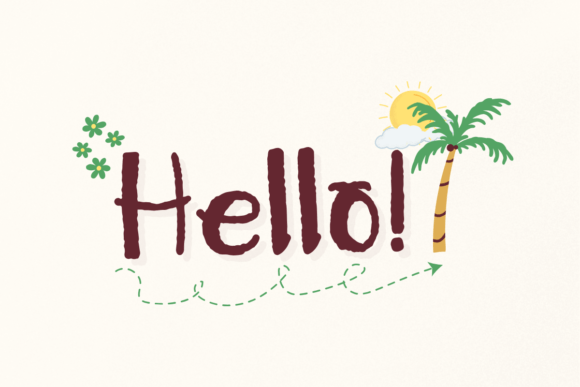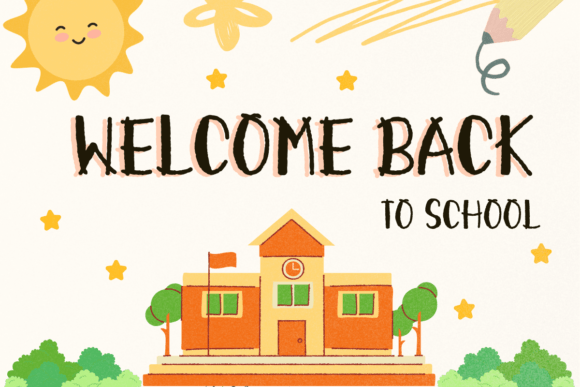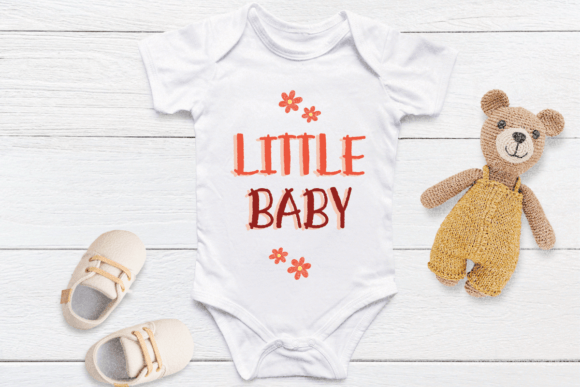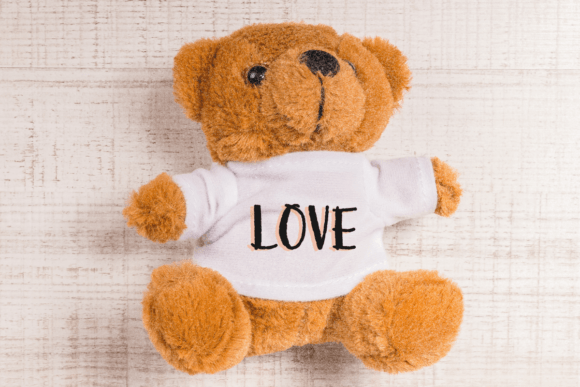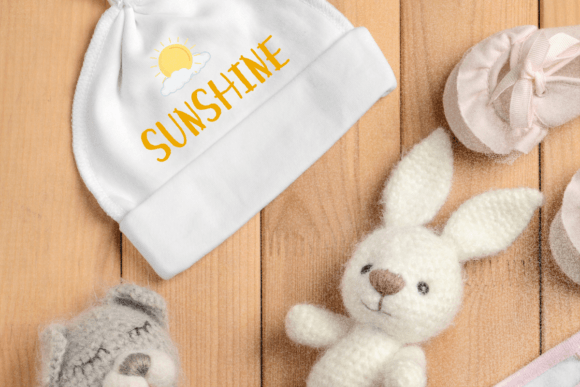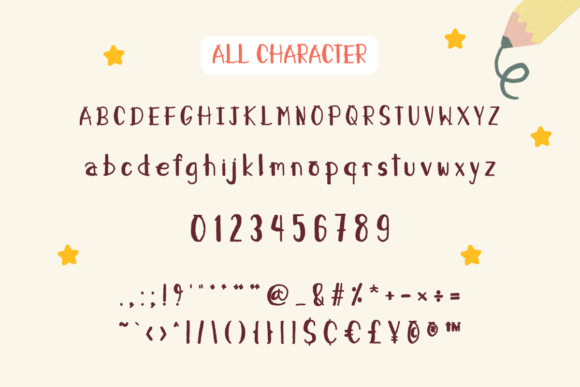
Introducing Bookend Font: The Perfect Handwritten Companion for Designers and Crafters
Are you on the hunt for a font that is as cute as it is versatile? Look no further than Bookend Font, a charming handwritten font that is perfect for a wide range of design applications. Whether you’re a designer, crafter, teacher, or simply someone who loves to get creative, Bookend Font is sure to become your new go-to.
What Makes Bookend Font So Special?
Bookend Font is a simple yet charming font that is sure to capture the hearts of designers and crafters alike. Its handwritten style gives it a personal and approachable feel, making it perfect for projects that require a touch of warmth and personality. The font is highly legible, making it easy to read and understand, even at smaller sizes.
One of the best things about Bookend Font is its versatility. This font can be used in a wide range of applications, from crafts for kids to greeting cards, and everything in between. Whether you’re creating a fun and playful design for a children’s party or a more formal design for a special occasion, Bookend Font is the perfect choice.
Bookend Font is a dream come true for designers and crafters who are looking for a font that is easy to work with and can help them create stunning designs. The font is perfect for:
- Crafts for kids: Use Bookend Font to create fun and playful designs for kids’ parties, crafts, and activities.
- Teachers: Create engaging and educational materials with Bookend Font, from worksheets to classroom decorations.
- Greeting cards: Add a personal touch to your greeting cards with Bookend Font, perfect for birthdays, holidays, and special occasions.
- Design projects: Use Bookend Font to add a touch of personality to your design projects, from brochures to posters.
Make Your Text the Centerpiece of Your Design
With Bookend Font, you can make your text the centerpiece of your design. The font is designed to be highly readable, even at smaller sizes, making it perfect for use in a variety of design applications. Whether you’re creating a design for print or digital use, Bookend Font is sure to make your text stand out.
Tips for Using Bookend Font
Here are a few tips for getting the most out of Bookend Font:
- Use it with a playful color scheme: Bookend Font is perfect for use with bright and playful color schemes, making it ideal for designs that require a fun and energetic feel.
- Pair it with other fonts: Bookend Font pairs well with other fonts, making it easy to create interesting and dynamic designs.
- Experiment with different sizes: Bookend Font is highly legible, even at smaller sizes, making it perfect for use in a variety of design applications.
In conclusion, Bookend Font is a charming handwritten font that is perfect for designers and crafters who are looking for a versatile and easy-to-use font. With its simple yet charming design, Bookend Font is sure to become your new go-to font for a wide range of design applications. Whether you’re creating crafts for kids, greeting cards, or design projects, Bookend Font is the perfect choice.
Get Creative with Bookend Font